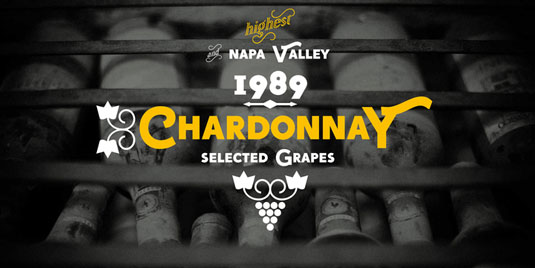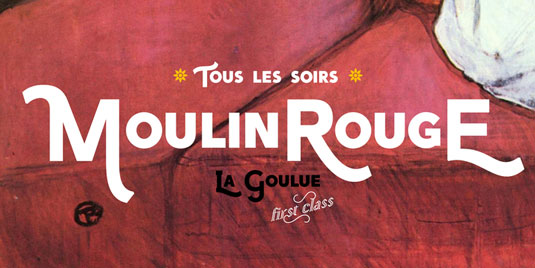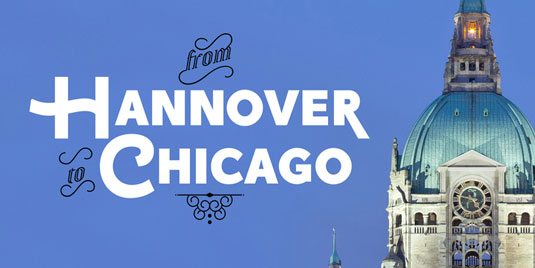
Font of the day: Yapa
Every day we showcase the best fonts on the web. Today it's Yapa by Vicente Lamónaca.
Yapa by Vicente Lamónaca
Today's typeface of choice is Yapa by designer Vicente Lamónaca. Based on the Arya and Prevya typefaces, this display font is ideal for eye-catching titles, logos and labels.